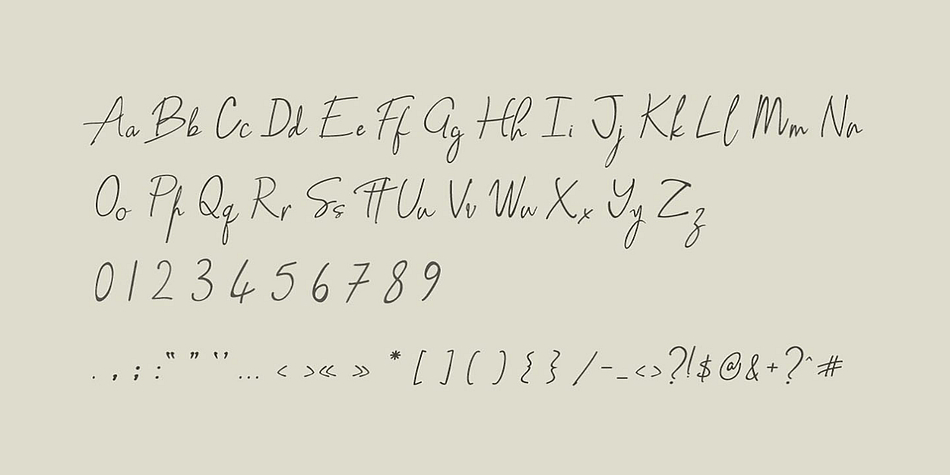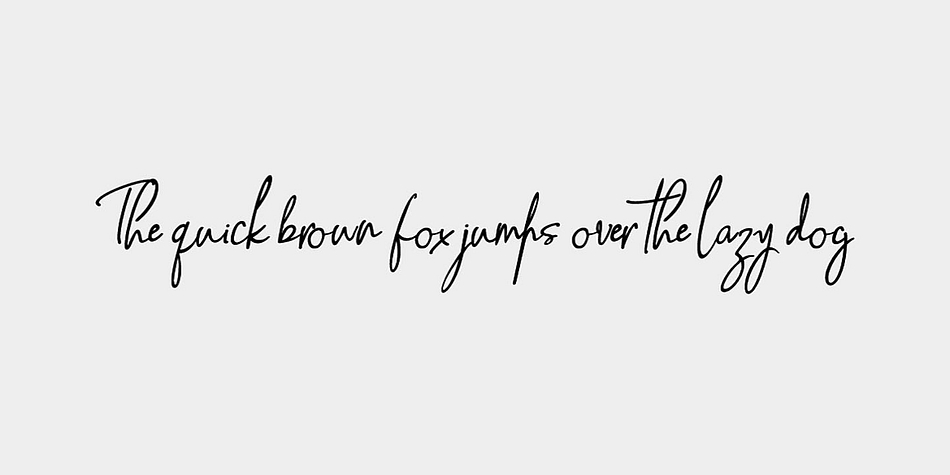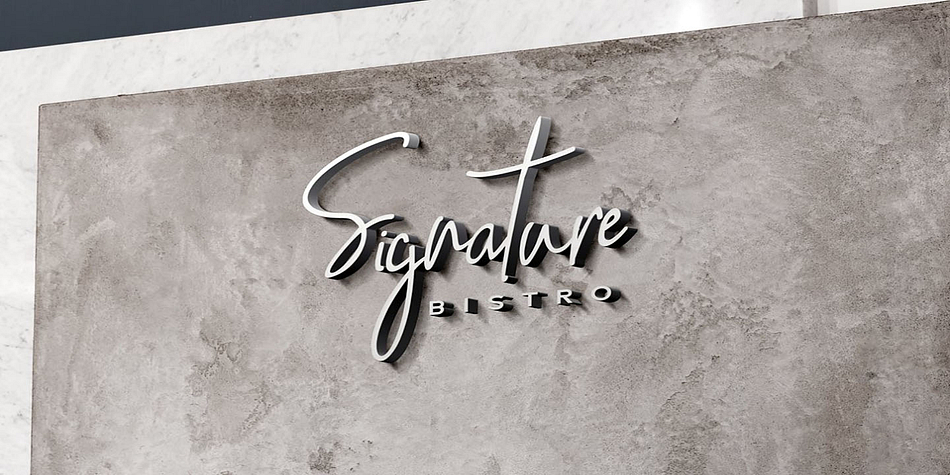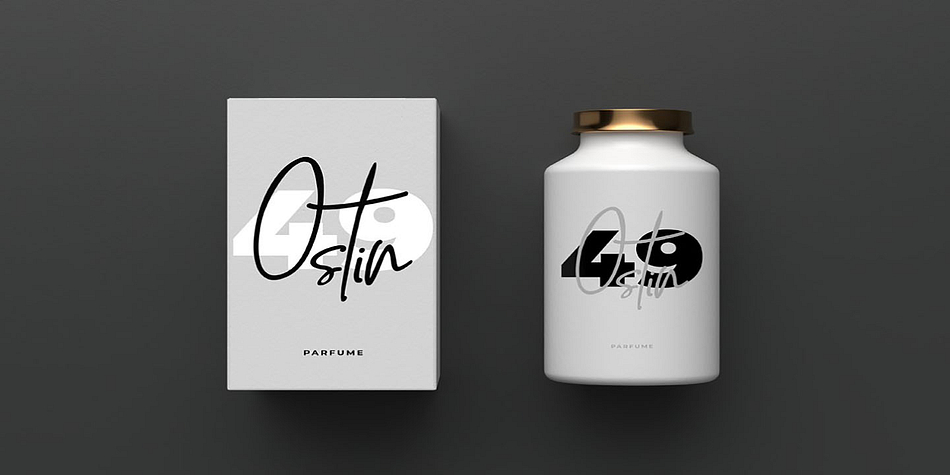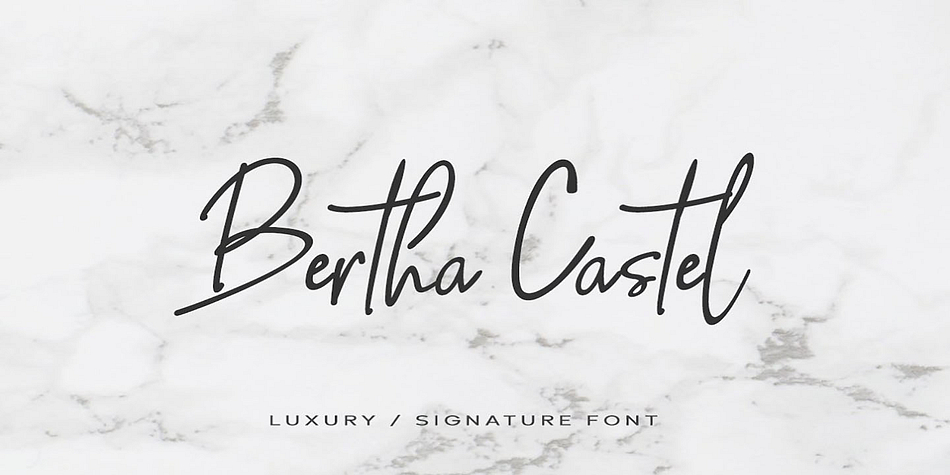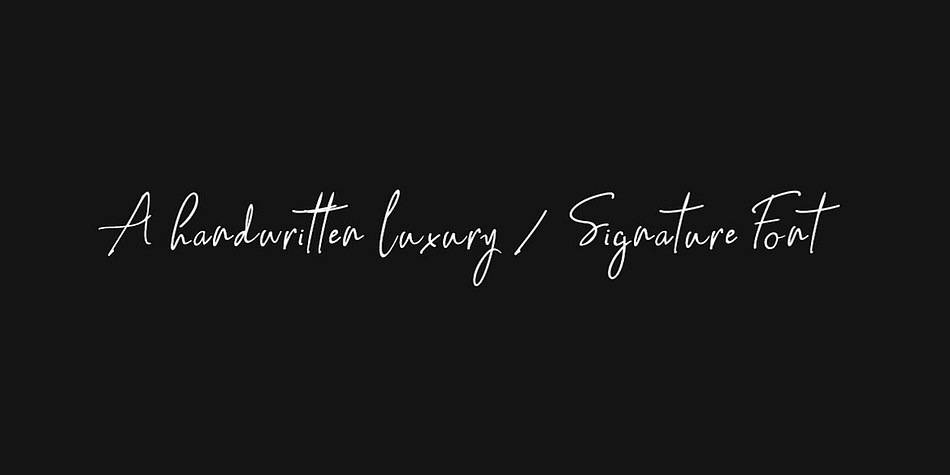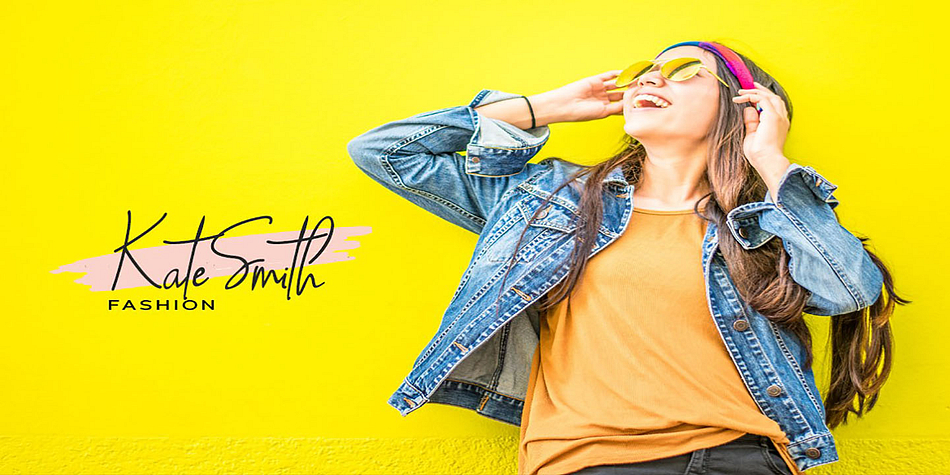
Bertha Caste
Bertha Caste is a hand drawn and modern calligraphy font family published by Fontastica.
Bertha Castel is a stunningly beautiful handwritten font for luxury / branding / wedding invites / greeting cards / logo design / promotional graphics. Bertha Castel is handwritten, precisely adding a finest touch of perfection and aesthetics at it’s level best.
Advanced Kerning
We have performed advanced, in-depth kerning to make sure the font looks amazing on all possible letter combinations.